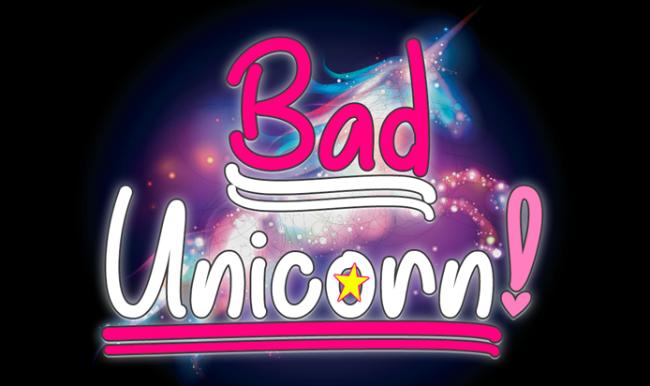
Instagram Font options can completely transform the look and feel of your social media content. Whether you’re designing eye-catching posts, editing your bio, or creating standout Stories, the right Instagram font can help you express your personal or brand identity with style. In this collection, we’ve gathered the best free Instagram font choices that are perfect for influencers, creators, and businesses alike.
From elegant script fonts to bold sans-serifs, every Instagram font here is chosen to make your content more scroll-stopping and memorable. These fonts work great for both visuals and text-based posts—no need for paid tools or subscriptions. Whether you’re using them for captions or profile aesthetics, there’s an Instagram font on this list that fits your vibe.
Instagram Fonts
Rosalia
Rosalia font is a sophisticated serif that masterfully blends modern innovation with timeless elegance. This versatile typeface creates stunning Instagram content with its perfect balance of contemporary design and classic readability, making it ideal for luxury brands and refined aesthetic posts.
Bad Unicorn
Unleash your rebellious side with Bad Unicorn, a font that perfectly balances edginess with playful charm. This unique typeface is ideal for creative brands, youth-focused content, and Instagram posts that dare to be different and memorable.
Sweety Rasty
Sweety Rasty brings irresistible charm to your Instagram feed with its adorable, bold display style. This delightful font radiates fun and romance, making it the perfect choice for lifestyle brands, celebration posts, and content that needs a sweet, memorable touch.
Milven
Discover the perfect harmony of tradition and innovation with Milven, a sophisticated serif that elevates Instagram content. Rich with ligatures and alternates, its refined curves and elegant structure make it exceptional for premium branding, magazine-style posts, and upscale content.
Chicago
Infuse your Instagram with personality using Chicago, a delightfully playful script that radiates authenticity. This charming font transforms ordinary posts into engaging content, perfect for personal branding, lifestyle content, and social media that celebrates genuine connection.
Give me some sugar
Sweeten your Instagram feed with this whimsically elegant font that perfectly balances charm and sophistication. Ideal for bakery brands, wedding content, romantic posts, and any content that deserves a touch of delightful, stylish sweetness.
Curly Planet
Enter a world of wonder with Curly Planet, a decorative masterpiece that adds magical curves to Instagram content. This enchanting font transforms ordinary posts into fantastical experiences, perfect for creative brands, children’s content, and imaginative storytelling.
Kids Smart
Energize your Instagram with Kids Smart, a vibrant display font bursting with playful personality. This dynamic typeface brings fresh excitement to greeting cards, logo designs, inspirational quotes, and content that celebrates creativity and joy.
Ferrica
Embrace refined luxury with Ferrica, featuring delicate flowing lines and intricate decorative elements. Its ornate uppercase letters and perfectly balanced lowercase create an atmosphere of effortless elegance, making it perfect for high-end branding and exclusive Instagram content.
Coral Lovers – Free Modern Ligature Serif
Discover the perfect blend of creativity and sophistication with Coral Lovers, a modern serif designed for Instagram content that demands elegance. This contemporary typeface features beautiful ligatures and refined character, making it essential for luxury brands and professional posts that need to stand out.
Anastasia Font
Anastasia brings gentle charm and handwritten authenticity to your Instagram presence with its playful, well-rounded character. This delightful font infuses every post with joyful romance, making it perfect for personal branding, lifestyle content, and any project that celebrates warmth and genuine connection.
ZT Neue Ralewe
Transform your Instagram content into artistic masterpieces with ZT Neue Ralewe, a serif font that transcends ordinary typography. This exceptional typeface doesn’t just enhance your posts – it elevates them into professional, gallery-worthy content that commands attention and respect.
Agreloy
Make a bold statement with Agreloy, a curvy, character-rich font that brings instant personality to Instagram. Its playful nature makes it ideal for comic-style posts, festive content, cartoon-inspired designs, and any content that celebrates fun and creativity.
Merchant Typeface
Elevate your Instagram brand with Merchant, a graceful transitional serif featuring exquisite contrast and beautifully crafted characters. This sophisticated typeface transforms ordinary posts into premium content, making it perfect for luxury logos, editorial designs, magazine-style posts, and high-end brand storytelling.